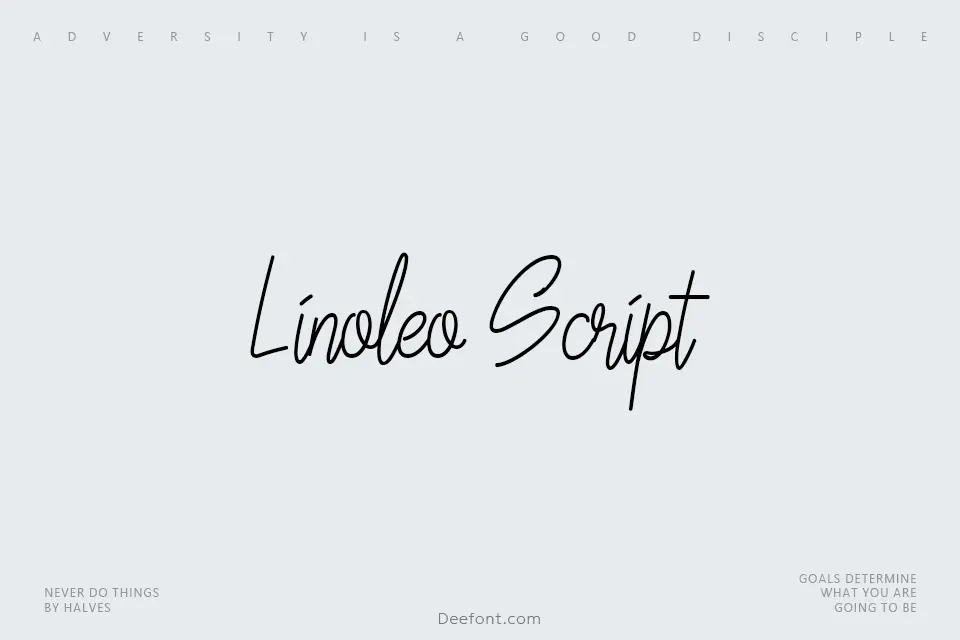
Linoleo Script Font
Linoleo Script is a carefully crafted monoline script typeface inspired by modern calligraphy, featuring consistent thin strokes and authentic handwriting characteristics. This elegant font excels in display applications including wedding invitations, adventure-themed posters, t-shirt designs, and minimalist branding projects. The letterforms are traced from natural handwriting, offering a balanced blend of sophistication and casual charm suitable for both print and digital media.